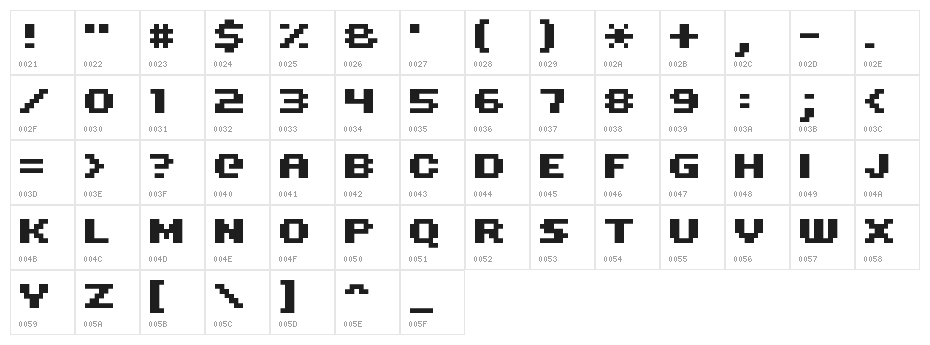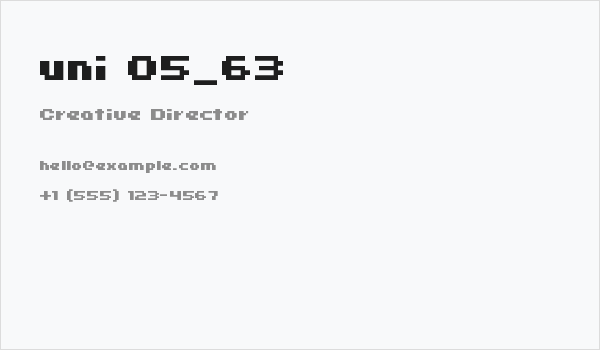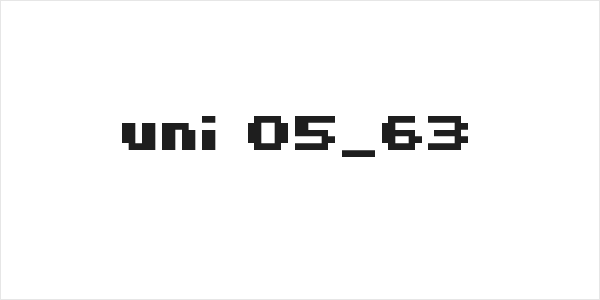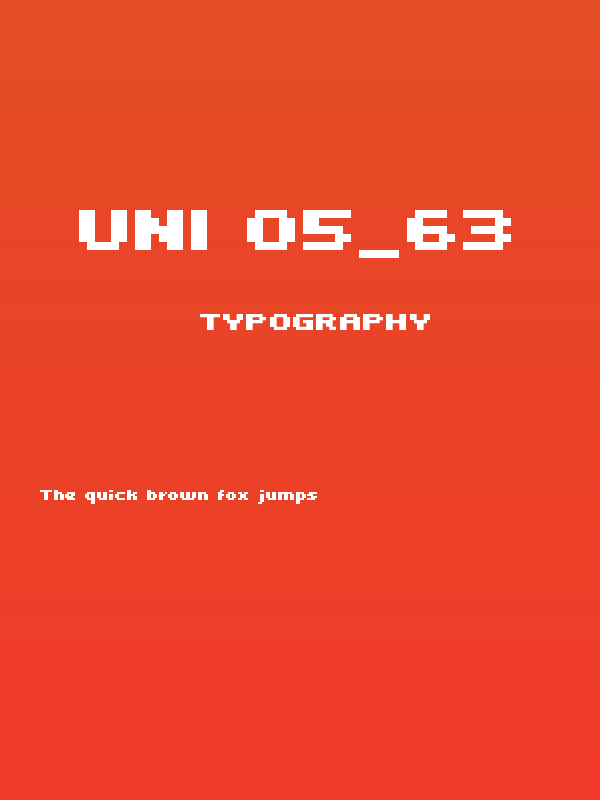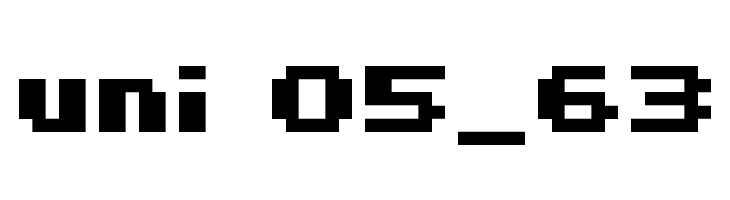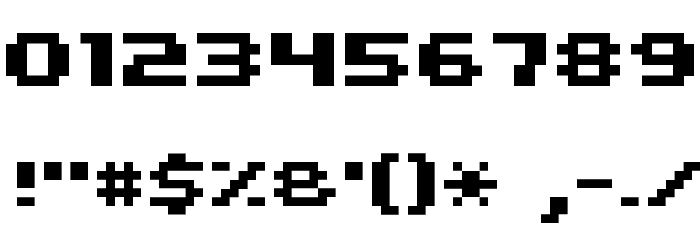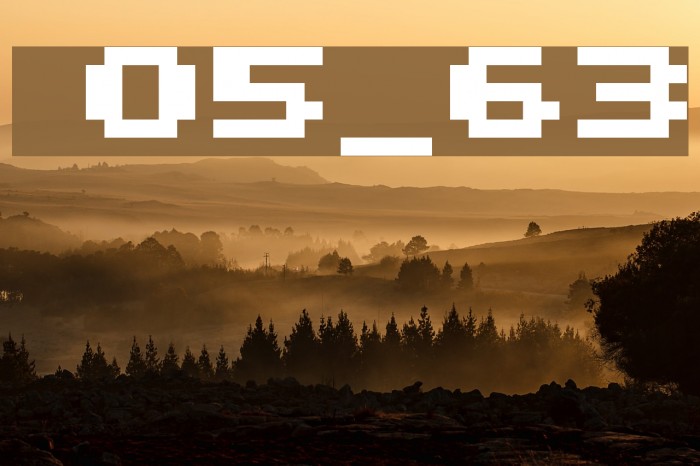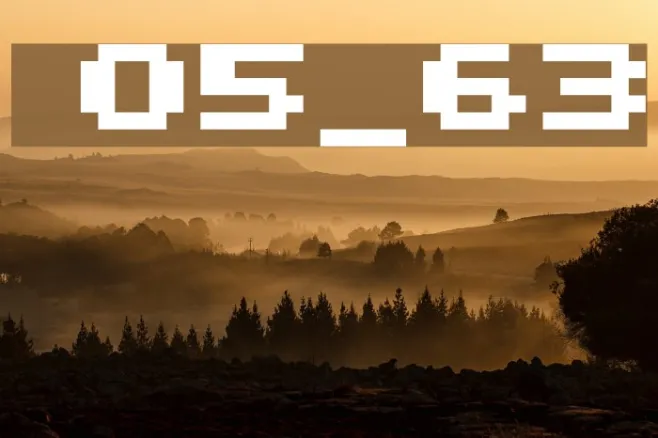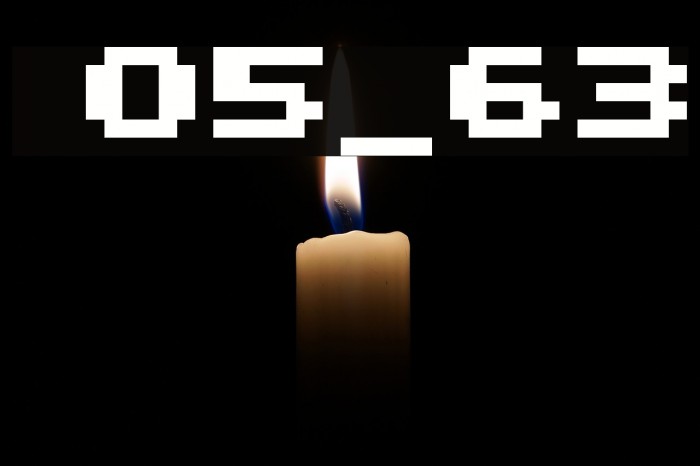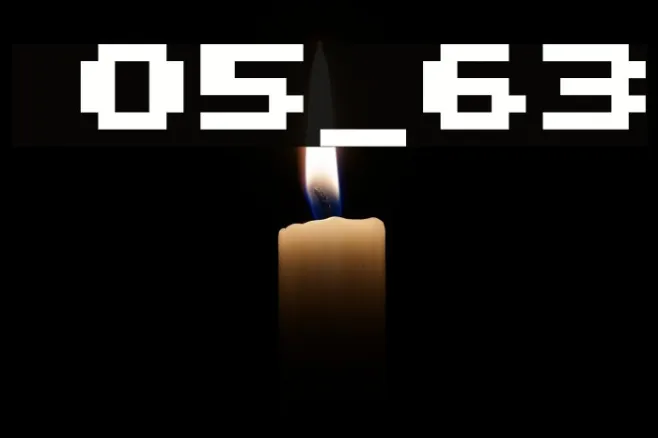
uni 05_63 Font
uni 05_63 Description
This font features a bold, pixelated style reminiscent of early digital and arcade game aesthetics. Each character is constructed with a blocky, grid-like appearance, emphasizing a retro, 8-bit feel. The uppercase and lowercase letters maintain a consistent height, giving the font a uniform look. The numerals and special characters follow the same pixelated design, ensuring cohesion across all glyphs. This font's nostalgic charm makes it ideal for projects that aim to evoke a sense of vintage digital culture.
| Use Case | Headlines, Logos, Digital Art |
| Proposed Projects | Ideal for video game design, retro-themed posters, digital art projects, and any creative work that seeks to capture a vintage digital vibe. |